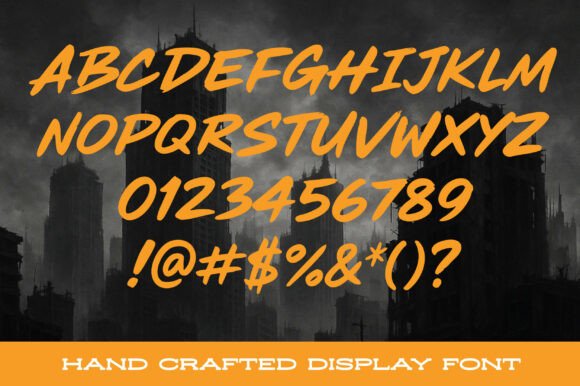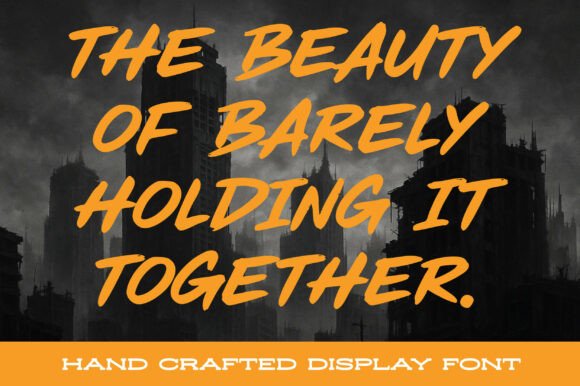
Unleash Your Creativity with Devastated Font: A Bold and Edgy Typeface
Are you tired of using the same old fonts for your designs? Look no further than Devastated, a bold, hand-painted brush font that’s bursting with raw energy and rough attitude. This unique typeface is perfect for designers and crafters who want to add a touch of edginess to their work.
The Unique Characteristics of Devastated Font
Devastated Font is a true showstopper, with each letter leaning forward with urgency, as if it was written in a rush with a thick paint marker. The uneven strokes, jagged edges, and natural wobble give every character an authentic, imperfect punch that’s sure to grab attention. This font is not for the faint of heart – it’s for those who want to make a bold statement and leave a lasting impression.
Devastated Font is incredibly versatile, making it perfect for a wide range of design projects. Here are just a few ideas to get you started:
- Posters: Whether you’re creating a poster for a concert, movie, or event, Devastated Font is sure to make it stand out.
- Sports Graphics: Add a touch of energy and excitement to your sports graphics with this bold and edgy font.
- Street-Style Branding: Devastated Font is perfect for creating bold and eye-catching branding for street-style clothing and accessories.
- Gritty Packaging: Add a touch of attitude to your packaging with this unique and edgy font.
- Album Art: Make your album art stand out with Devastated Font, perfect for music artists who want to make a bold statement.
Why Choose Devastated Font?
So why choose Devastated Font for your next design project? Here are just a few reasons:
- Loud Personality: Devastated Font delivers loud personality without losing legibility, making it perfect for bold statements and impactful headlines.
- Emotional Connection: This font is designed to evoke emotion, making it perfect for designs that need to connect with the viewer on a deeper level.
- Authentic Look: The hand-painted brush strokes and uneven edges give Devastated Font an authentic, imperfect look that’s sure to resonate with viewers.
Tips for Using Devastated Font
Here are a few tips for using Devastated Font in your designs:
- Use it Boldly: Devastated Font is designed to be used boldly, so don’t be afraid to make it big and eye-catching.
- Experiment with Colors: Try out different colors and textures to really make your design pop.
- Pair it with Other Fonts: Devastated Font pairs well with other fonts, so feel free to experiment with different combinations.
In conclusion, Devastated Font is a bold, hand-painted brush font that’s perfect for designers and crafters who want to add a touch of edginess to their work. With its unique characteristics, versatility, and emotional connection, this font is sure to make a lasting impression. So why settle for boring, generic fonts when you can unleash your creativity with Devastated Font?